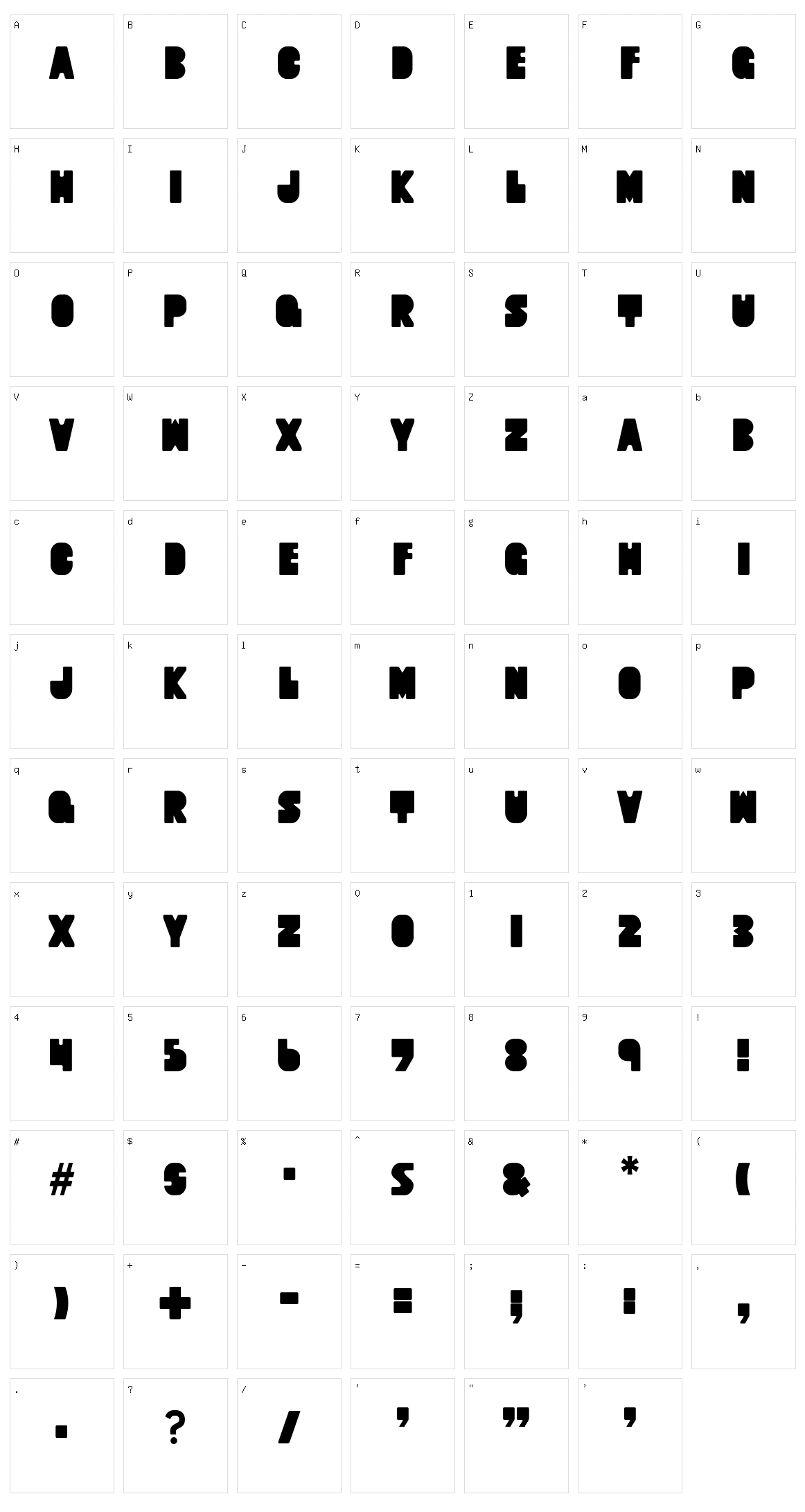
The free font Quart 07 is carefully designed by Norwegian Ink / Design for Dough, showcasing a thoughtful balance of creativity and usability and falls under the Groovy font style. When you download the ZIP file, it contains only 11.38 KB of font files, making it lightweight and quick to download. Please review the license details below to understand permitted usage and distribution rights. If license information is not available, we recommend using this font for personal projects only or contacting the author directly for commercial usage permissions.